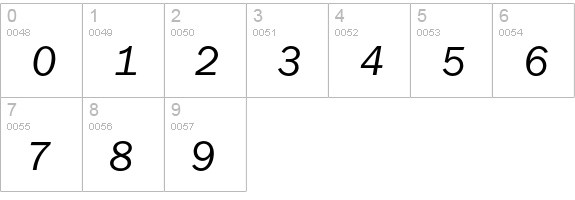
Franklin Gothic* Book Italic Font Details
Franklin Gothic* Book Italic is a comfortable, highly readable, italic variant in the Franklin typeface family \xE2\x80\x94 well suited to long-form body text, articles, and editorial content.
Franklin Gothic Book Italic is a versatile and elegant typeface that exudes sophistication and style. With its slanted design and clean lines, this font is perfect for adding a touch of class to any project. Whether you're designing a website, creating a brochure, or crafting a logo, Franklin Gothic Book Italic is sure to make a statement. The italic style of this font adds a sense of movement and fluidity to your text, making it ideal for conveying a sense of elegance and grace. Its readability and understated charm make it a popular choice for both print and digital media. The best part? Franklin Gothic Book Italic is available for free download at FontsMarket.com. So why wait? Add this beautiful font to your collection today and elevate your design projects to the next level.